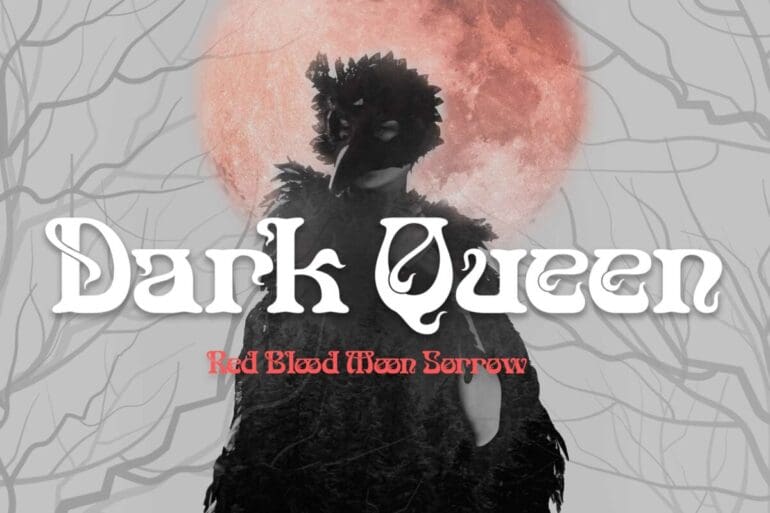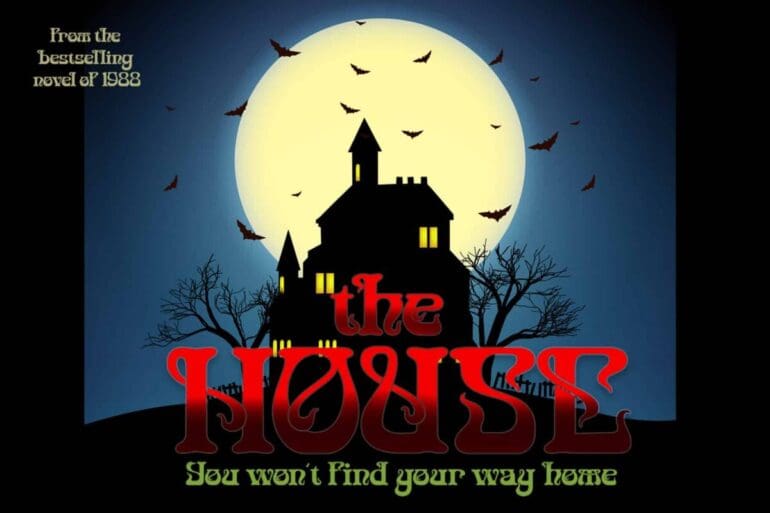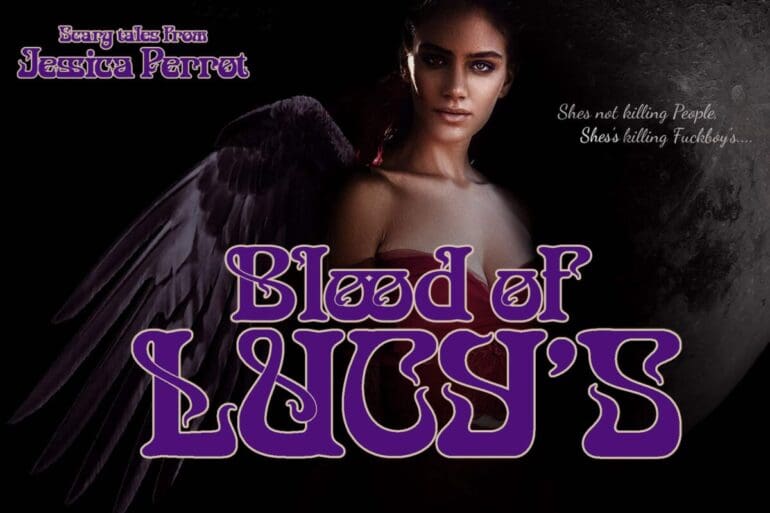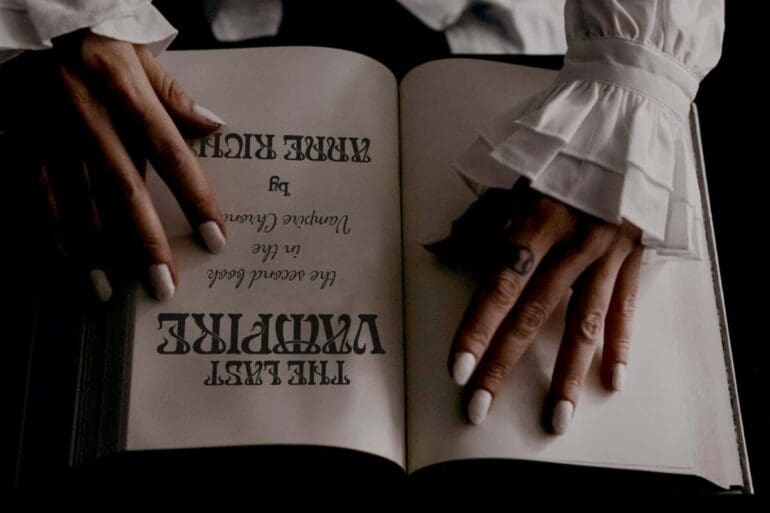
Maloney West Font
Maloney west Font. This pair was inspired by the Cartoon thriller movie poster design that I saw on some coffee shop, It was crafted by hand especially to add a natural handmade feeling in its brand identity then I make it clean with pentool.